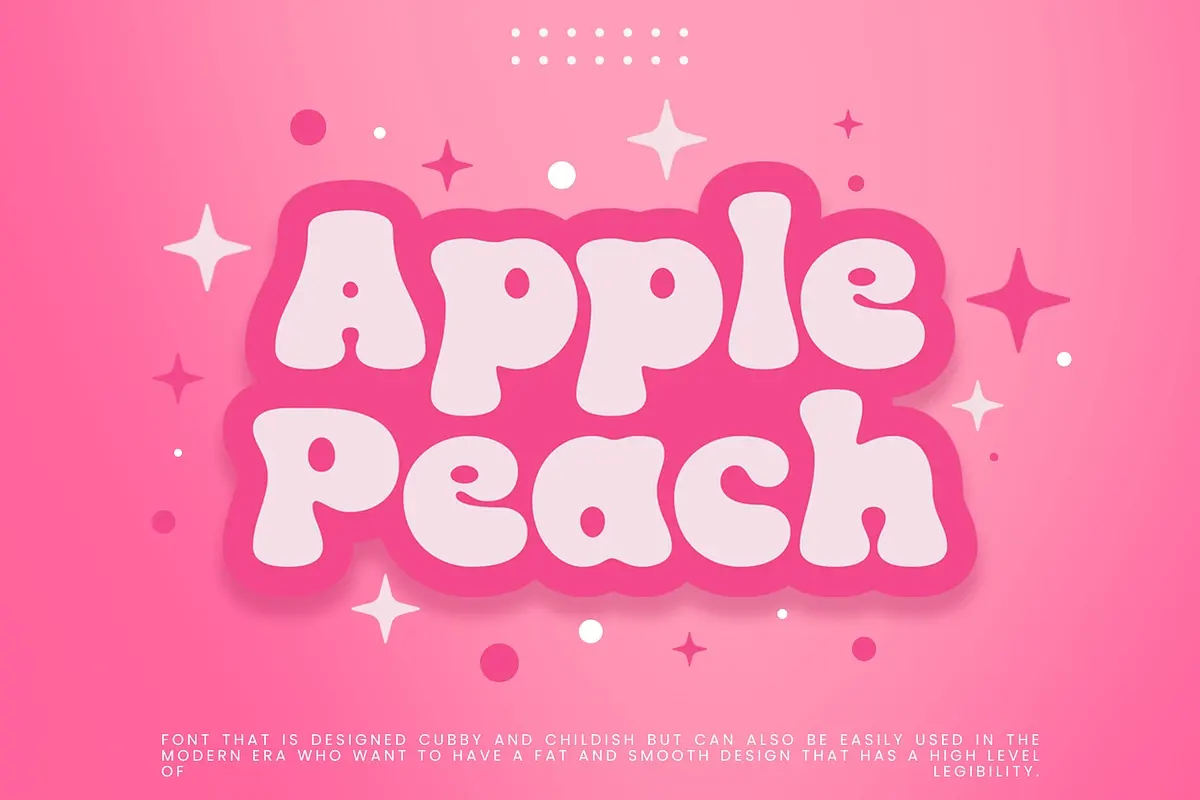
Apple Peach | Playful bubble Font Free Download
Apple Peach Font Free Download is a playful and bubbly typeface that brings fun and energy to your designs. With its rounded, cartoon-like letterforms and whimsical character, Apple Peach is perfect for children's projects, playful branding, social media graphics, posters, and anything that needs a cheerful, lighthearted touch.
The font features smooth, round edges and a friendly, approachable style, making it ideal for designs that aim to convey joy, creativity, and warmth. It includes uppercase and lowercase letters, numerals, punctuation, and alternate characters to provide versatility in your typography.
Whether you're designing a kids’ brand, a vibrant event poster, or a playful greeting card, Apple Peach Font Free Download will add a fun and bubbly personality to your work. Feel free to use it for personal or mockup projects, and be sure to purchase the appropriate license for commercial use. Bring happiness and creativity to your designs with this lively, playful font.